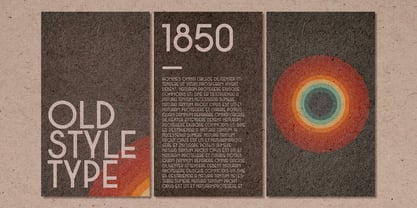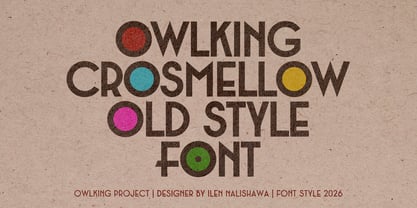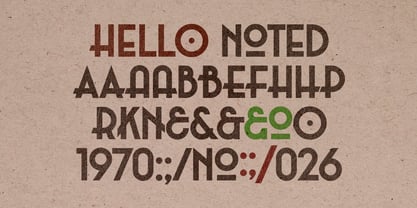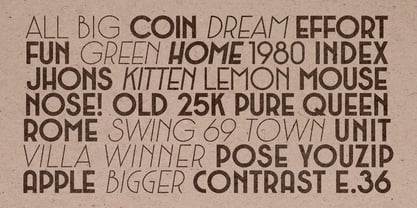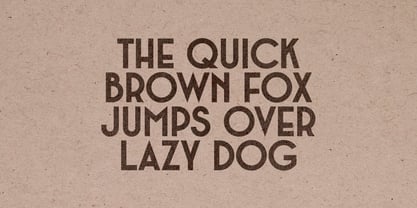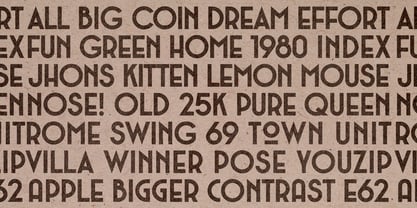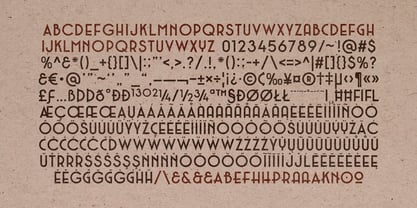
Crosmellow
by Owl king project
The Crosmellow Font Family was designed by Darhilen and published by Owl king project. Crosmellow contains 18 styles and family package options. More about this family
Crossmellow is a modern old-style typeface that blends vintage warmth with contemporary clarity. Featuring playful circular accents and a balanced geometric structure, Crossmellow delivers a unique typographic personality perfect for branding, packaging, editorial design, and creative merchandise. With 19 styles Crossmellow including italic, (Multilingual Support) Western European Languages, Central European Languages, Basic Latin, this versatile type family allows designers to create expressive and professional typography across both print and digital media.